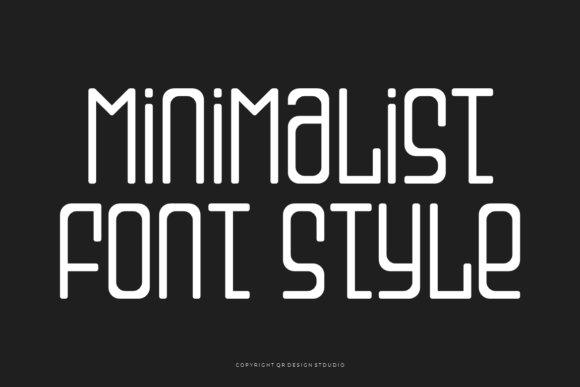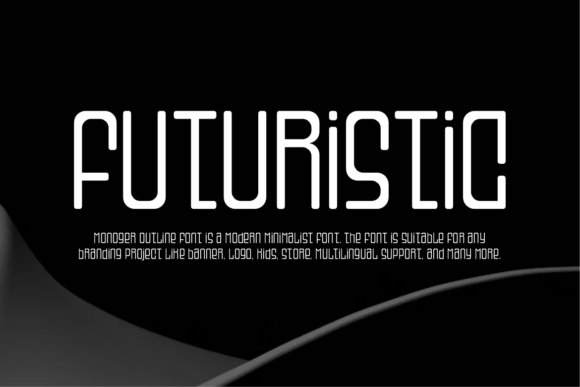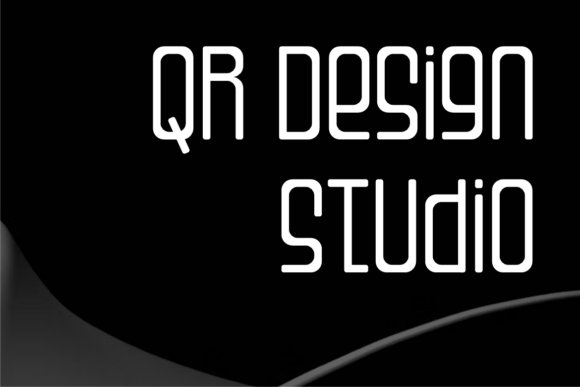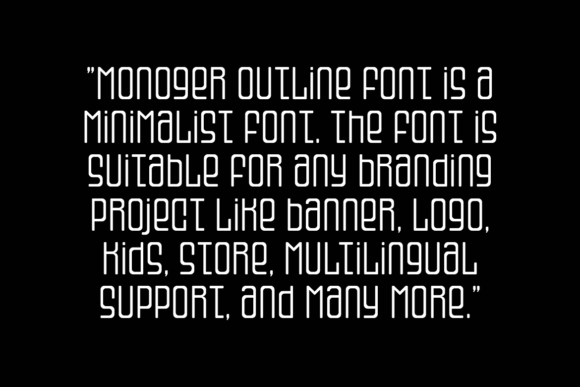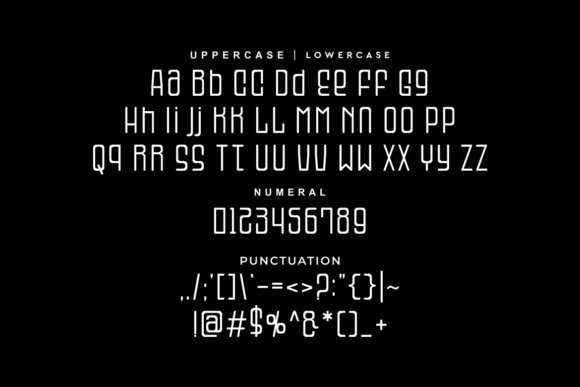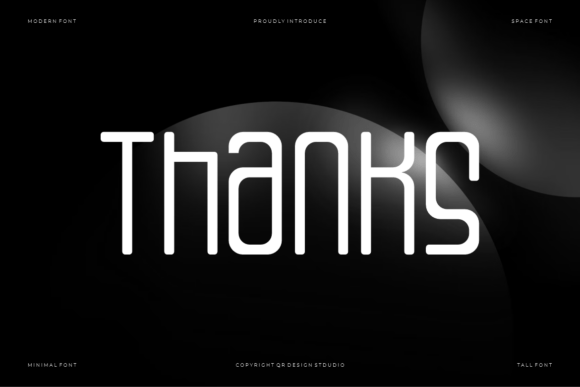
Introduction to Monoger Outline Font
Monoger Outline is a minimal and authentic sans serif font.
The font is suitable for any branding project like logo, sport, and many more Outstanding in a wide range of contexts.
Key Features of Monoger Outline Font